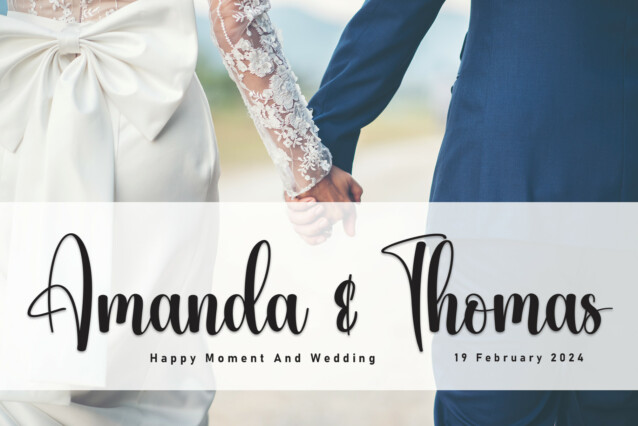
Vacation Script Typeface
Vacation Script Typeface is a stylish handwritten font that epitomizes the expressive beauty of brush lettering. With confident strokes and dynamic letterforms, it achieves a perfect blend of modernity and artistic flair. Ideal for projects seeking a bold and contemporary handwritten aesthetic, Vacation adds a touch of expressive elegance to your designs.